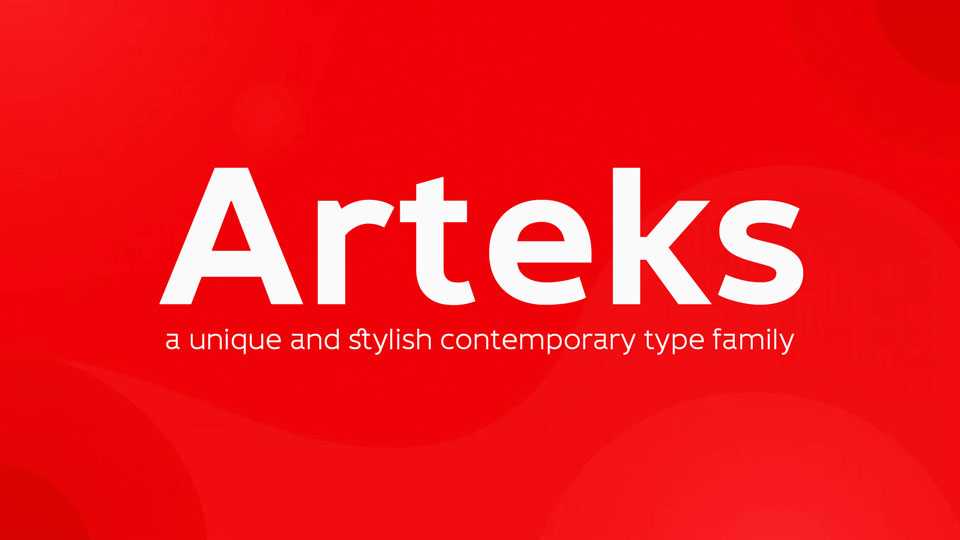
Download Arteks font, a unique and stylish contemporary type family designed for versatility and expressive modern design, balancing geometric precision with humanist warmth.
Designer: Vasiliy Shishkin